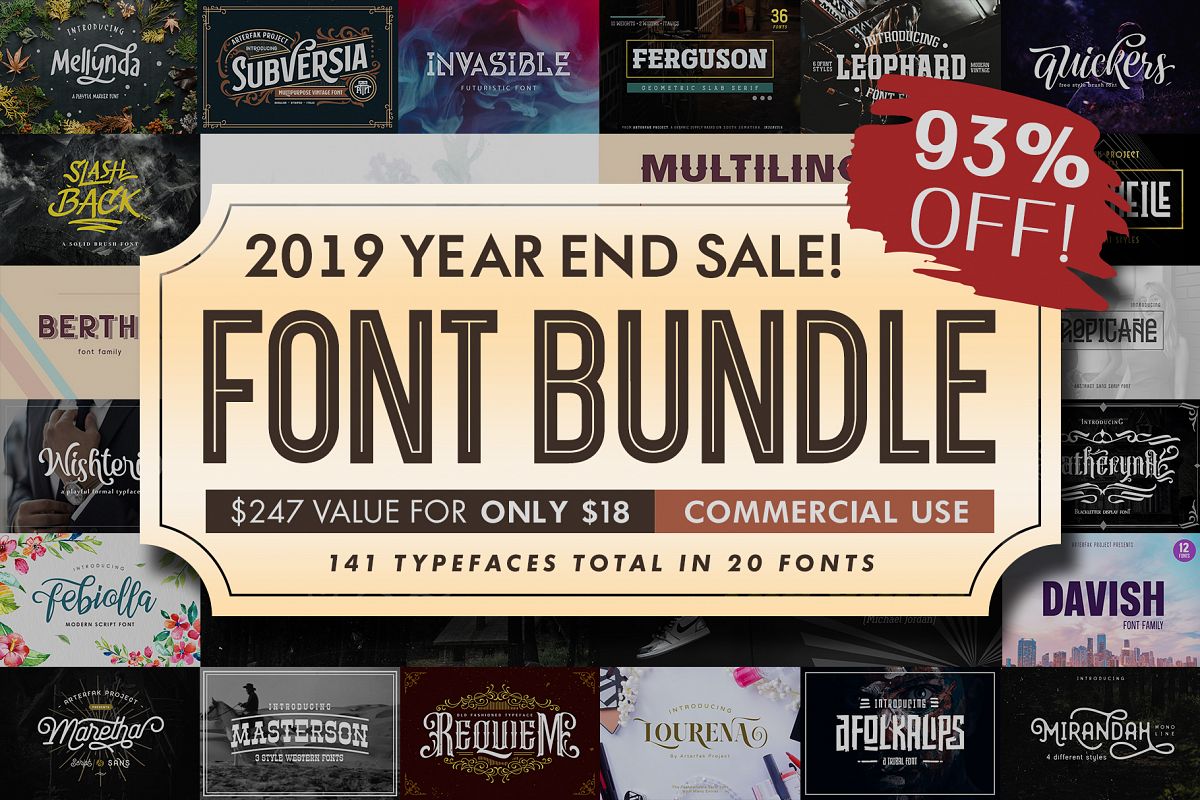
There are a lot of varied styles such as calligraphy, monoline, blackletter, sans serif, decorative, serif, slab serif, futuristic and more!A great choice for branding, logo design, clothing, T-shirt, poster, flyer, label, wedding, packaging, display, advertising and etc. Also, the fonts have many features that you can access such as Alternates, Ligatures, Contextual Alternates, Accents, Stylistic Set, and Swashes. Available in TTF and OTF format.
• Serif: Subversia - Lourena
• Sans Serif: Bertha - Davish - Marcheille
• Brush Script: Quickers - Slashback - Wishteria - Febiolla
• Monoline: Mirandah - Maretha - Mellynda
• Slab Serif: Ferguson - Leophard - Masterson
• Blackletter: Katheryna - Requiem
• Futuristic: Tropicane - Invasible
• Ethnic: Afolkalips